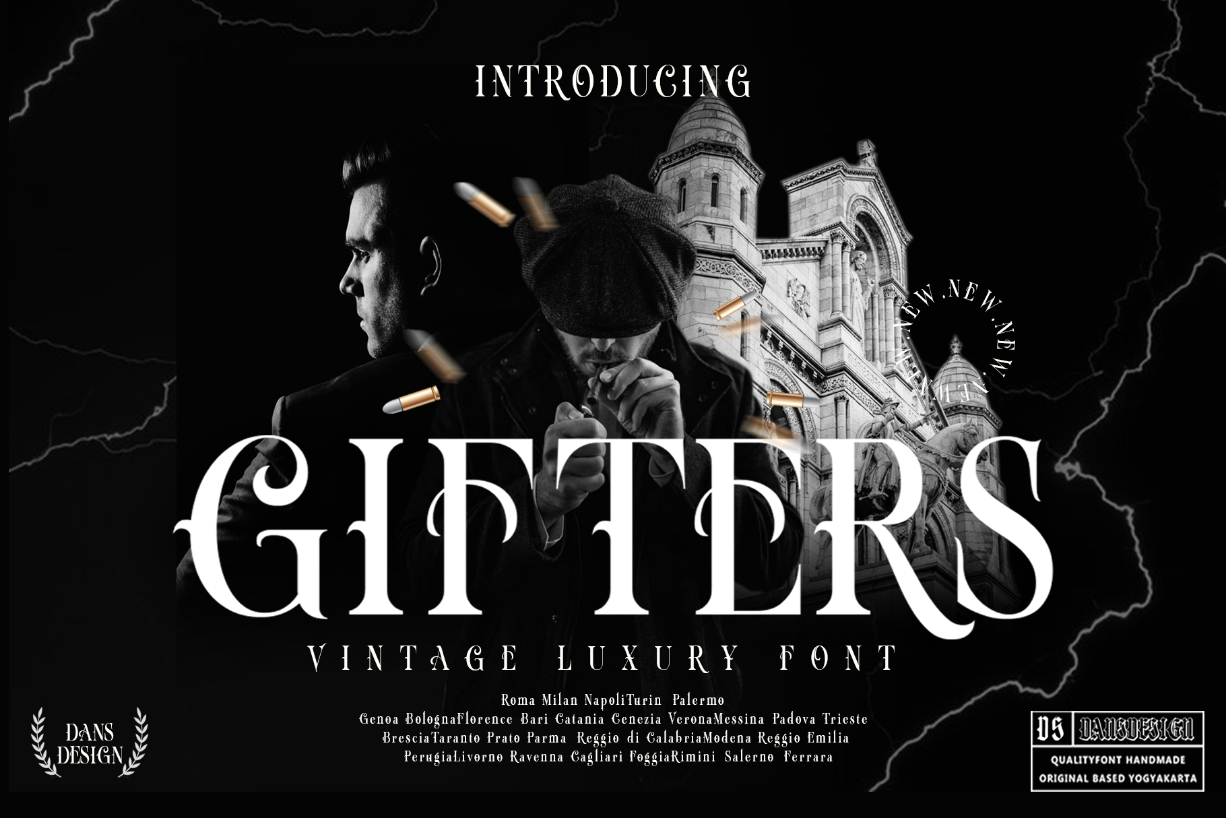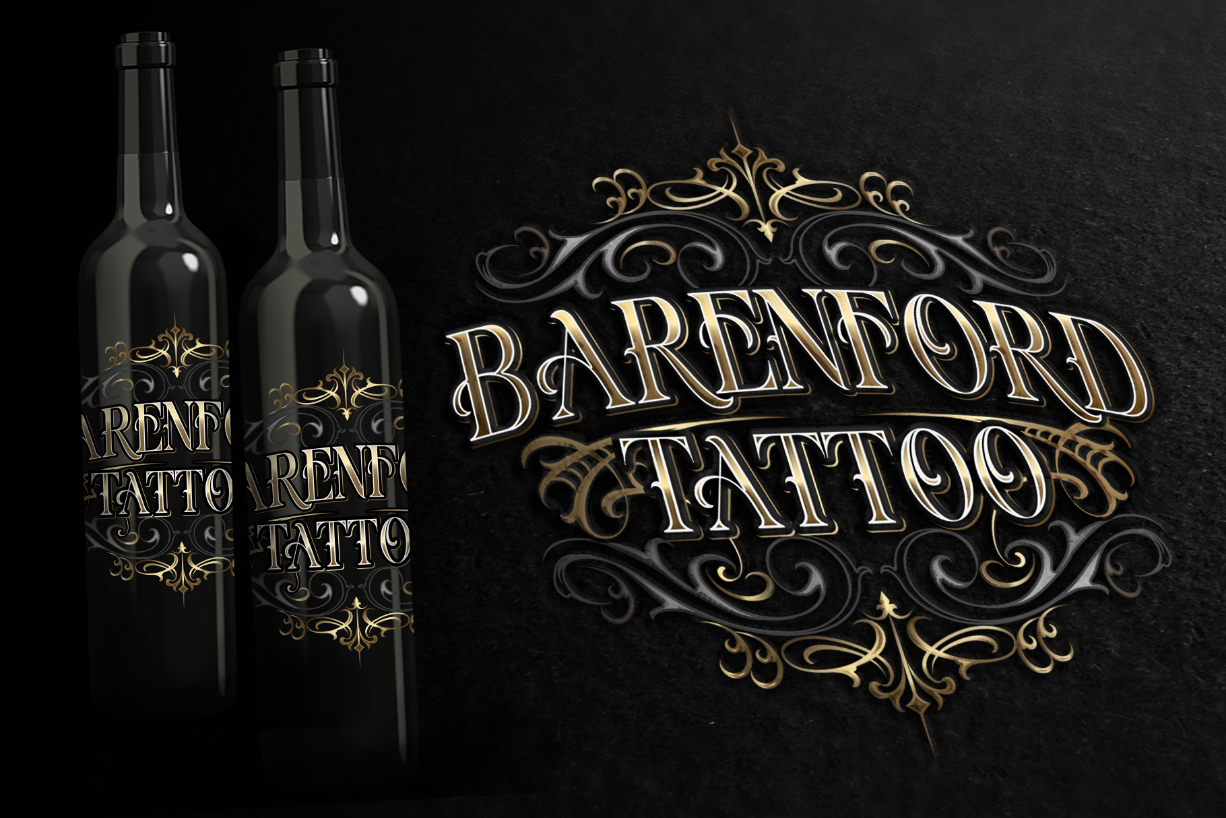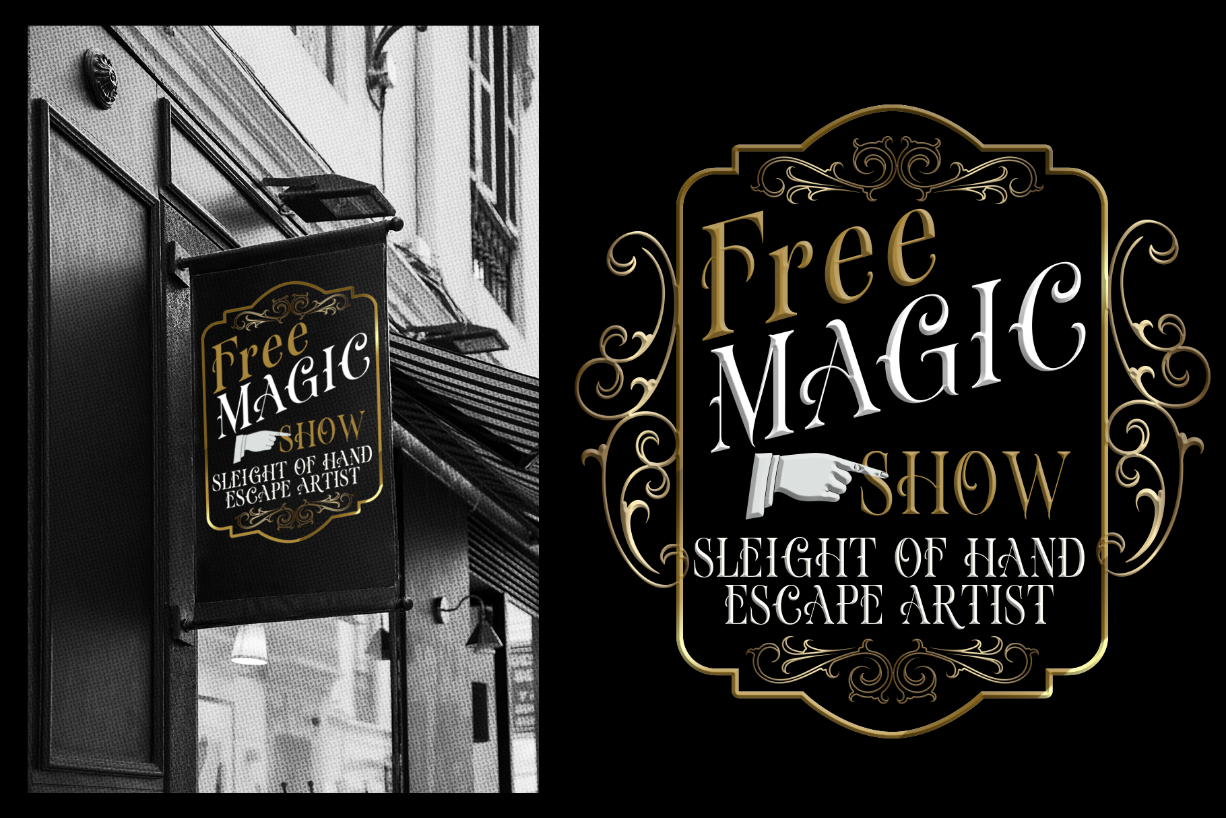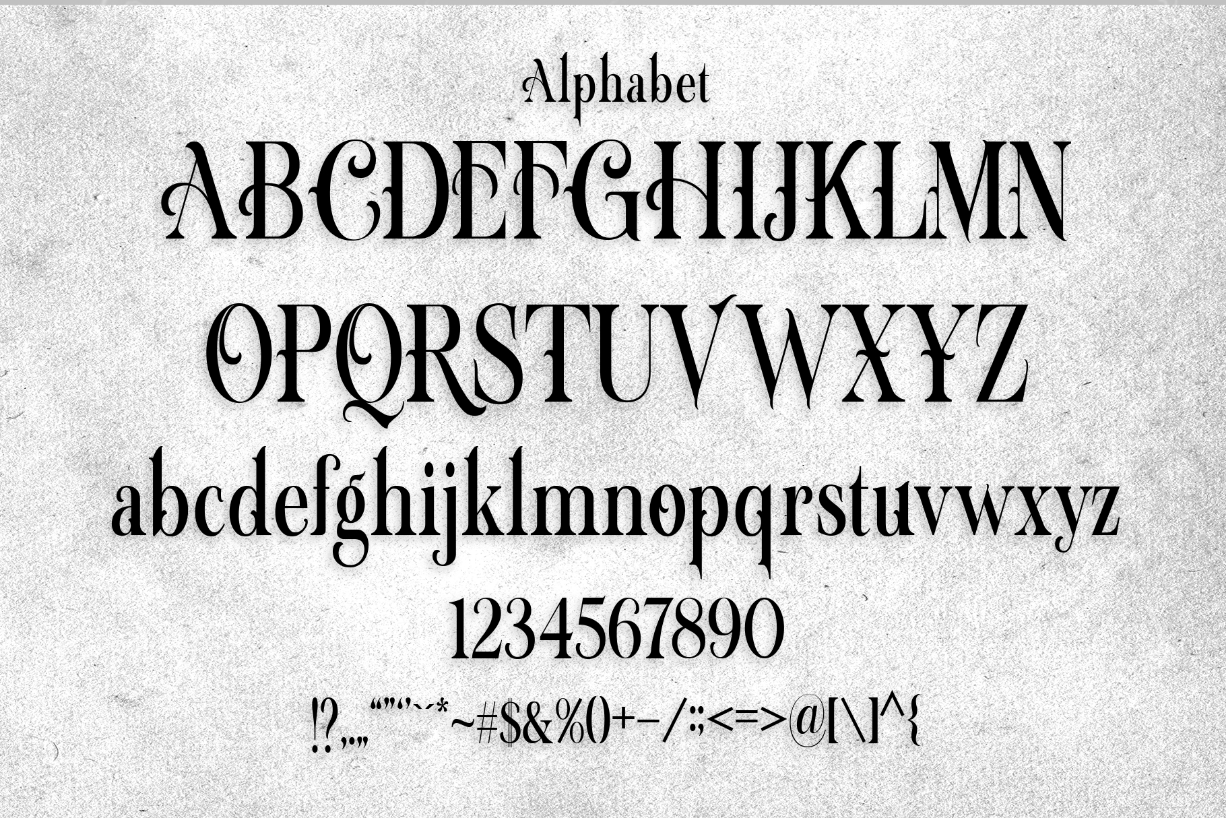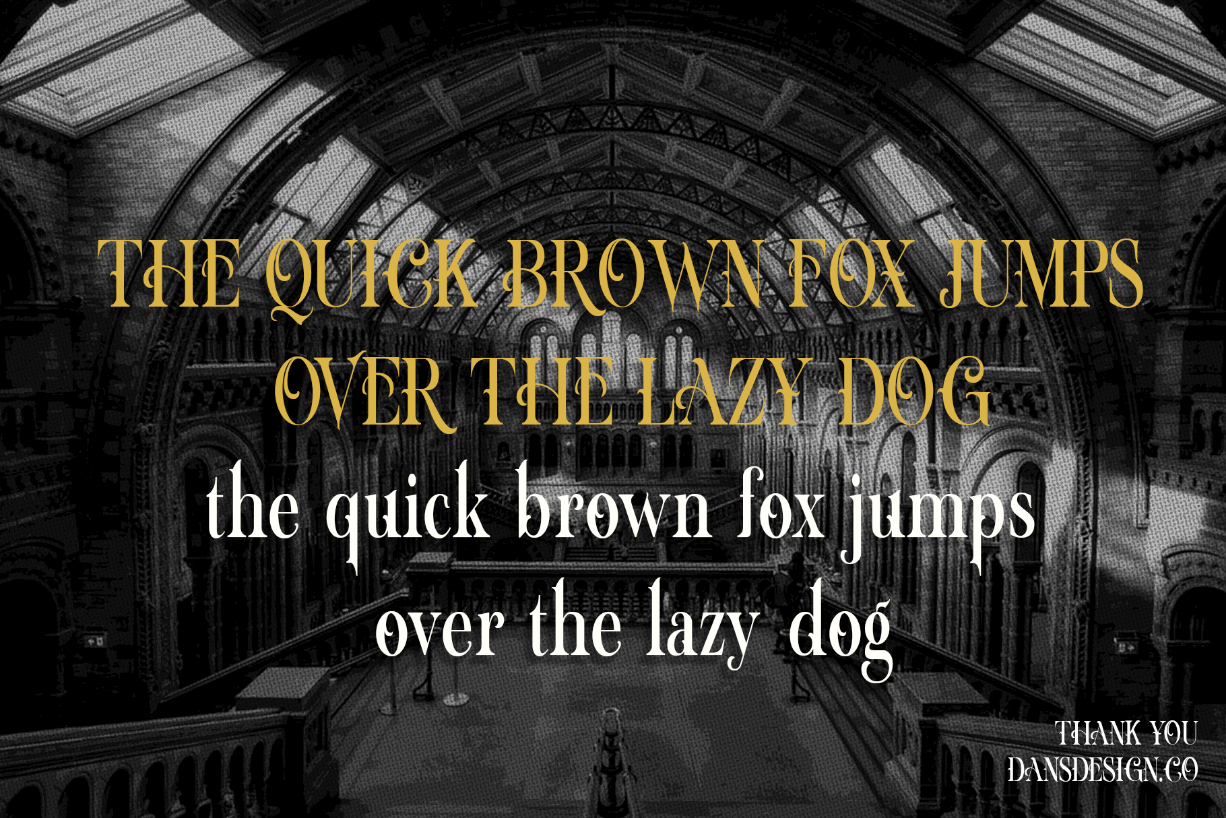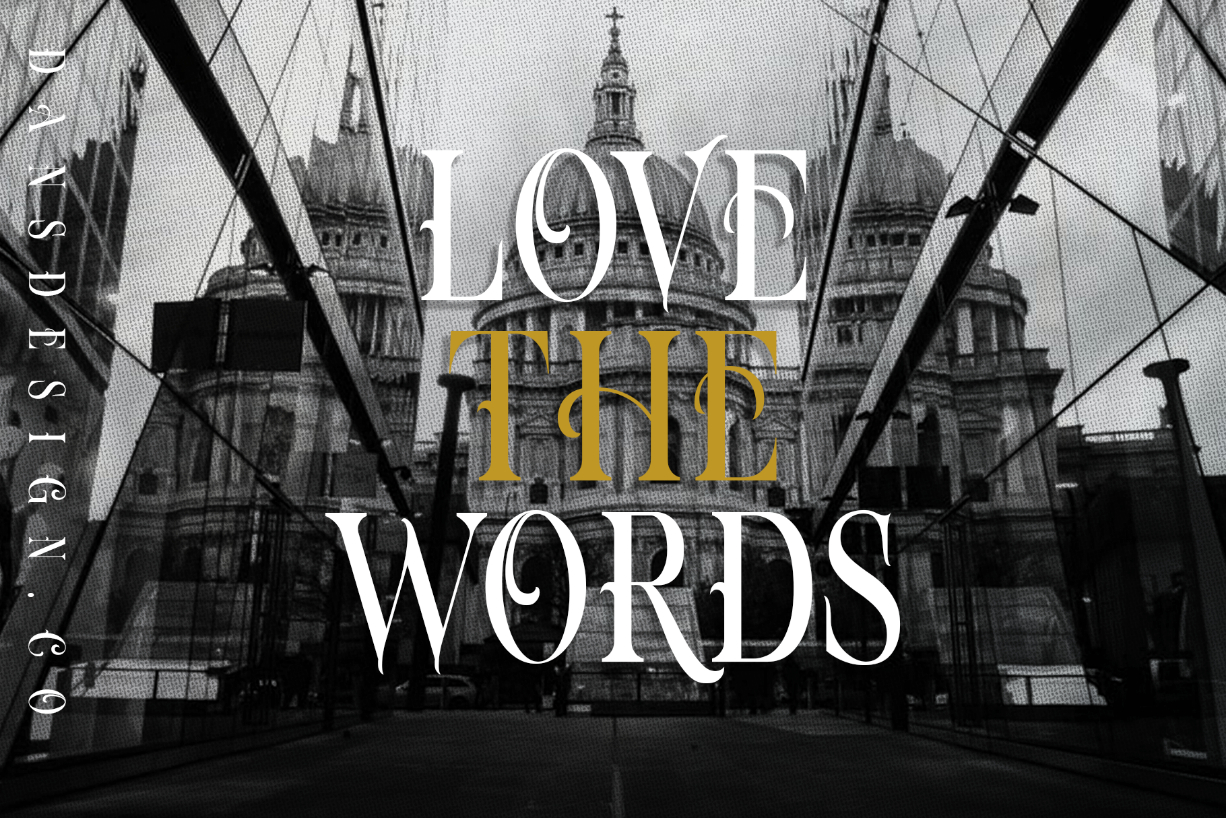
Gifters Font
About Gifters Font
Gifters is a bold and almost gothic blackletter font. It has a spooky flair combined with an exquisite style which makes this typeface a great choice for your most creative and daring projects!